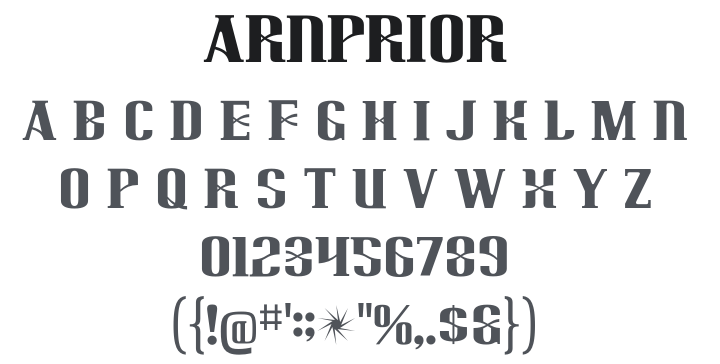
Arnprior Font
About Arnprior
Arnprior is a decorative display typeface built on a modular concept where ornamental forms replace conventional strokes. Its most distinctive feature is wavy crossbars that inject a lively, rhythmic quality into each letter. It works well for trendy editorial headlines, poster titles, decorative logos, and designs that need an eye-catching, unconventional personality.